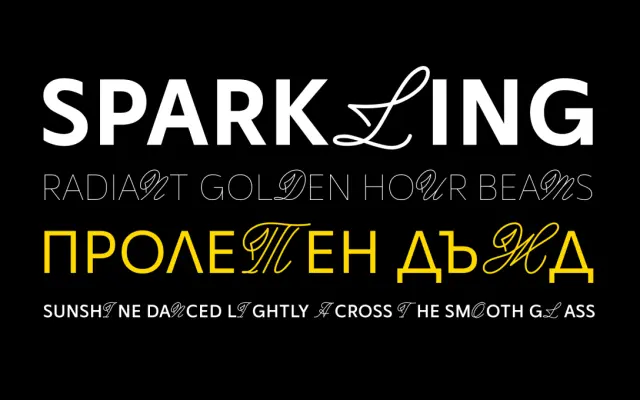
Combina
Fontfabric · Ani Dimitrova, Viktoria Usmanova, Stefan Yatanski · 2025
A display family from Fontfabric that programmatically alternates between geometric sans and cursive script letterforms as you type, creating built-in visual rhythm across six weights.
Designed by Ani Dimitrova, Viktoria Usmanova and Stefan Yatanski, Combina combines Futura-influenced geometric forms with a romantic script derived in part from American Script in Pettingill & Co.'s 1901 Copper Alloy Type Book. Contextual alternates engine switches between the two styles automatically, producing contrasting texture without manual intervention. Covers Extended Latin and Cyrillic with OpenType features including stylistic sets, ligatures and case-sensitive glyphs, and is available as a variable font.
Combina is classified as display because its core conceit, dynamically alternating between geometric sans and cursive script letterforms within a single setting, is inherently expressive and unsuited to body text. It defies a single subcategory, sitting somewhere between geometric sans and script as a programmed hybrid.